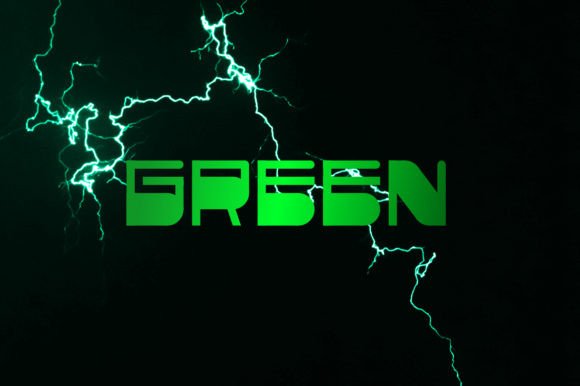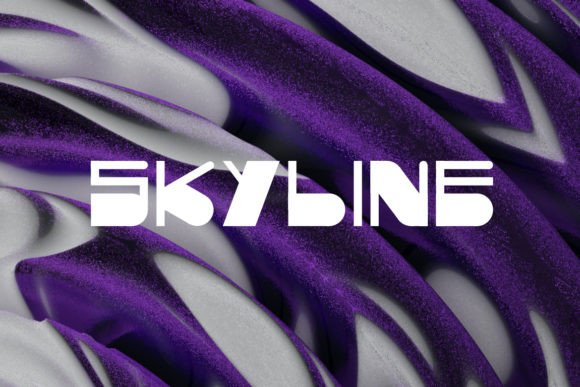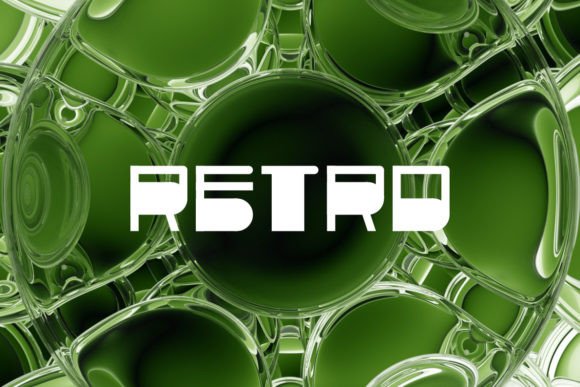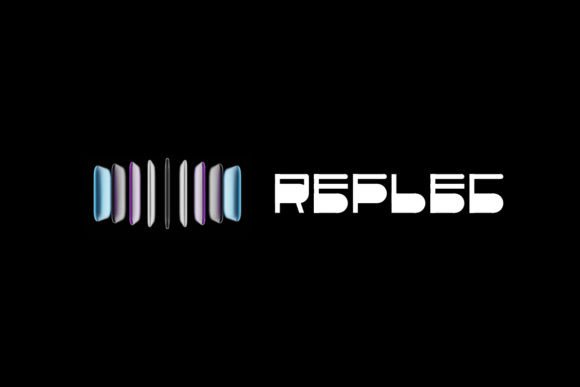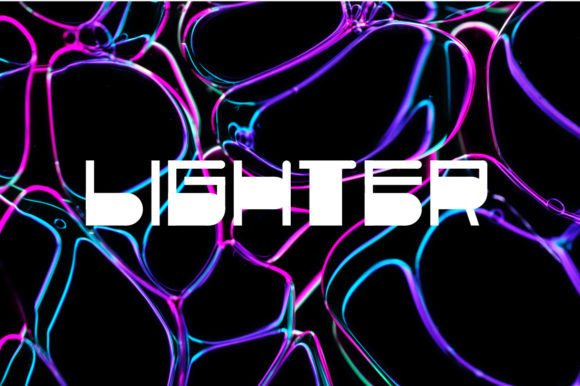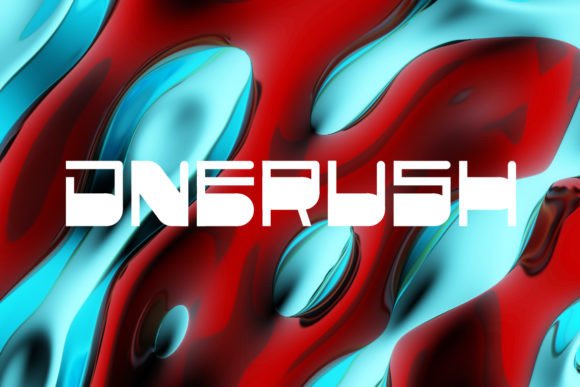
Introduction to Knoo Font
You know that moment when you’re working on a creative project and you just can’t seem to find the right font to bring it all together? The design is looking great, but something’s missing – a little spark that will take it from good to amazing.
Well, we’ve got the solution for you. Say hello to the Knoo Font, a cool and casual display font that’s sure to elevate any design. Whether you’re working on a personal project or a professional one, this font is a valuable addition to any designer’s library.
Key Features of Knoo Font
- Unique characteristics include its modern sans-serif design and clean lines, making it perfect for use in logos, branding, and typography.
Honest Review: Knoo Font
As a designer, I’m always on the lookout for high-quality design resources to elevate my creative projects. Recently, I stumbled upon the Knoo Font, and I’m excited to share my honest review with you.
What works well: ✨ The Knoo Font has a unique, modern aesthetic that’s perfect for a wide range of design applications, from branding to digital products. The font is available for free download, making it an excellent resource for designers on a budget. The transparent background allows for seamless integration with any design element.
- Unique and modern aesthetic
What’s not so great: ⚠️ While the Knoo Font is a great addition to any design arsenal, it’s not without its limitations. The font may not be suitable for print-based designs, as it’s optimized for digital use. Additionally, the font’s complexity may make it challenging to pair with other fonts.
Overall, I’m impressed with the Knoo Font’s potential to elevate my design projects. Its unique aesthetic and free download make it an excellent resource for designers. However, designers should be aware of its limitations before incorporating it into their work.
Tips for Getting the Most Out of Knoo Font
Experiment with different font sizes, colors, and styles to get the desired look. Use the Knoo Font in combination with other design elements to create a unique and eye-catching design. Take advantage of the transparent background to create a seamless design experience.
The Knoo Font is ideal for creative projects that require a unique and modern look. Use it for social media graphics, posters, logos, typography projects, presentations, and documents. With its high-quality design and transparent background, the Knoo Font is a versatile design resource that can be used in a variety of contexts.